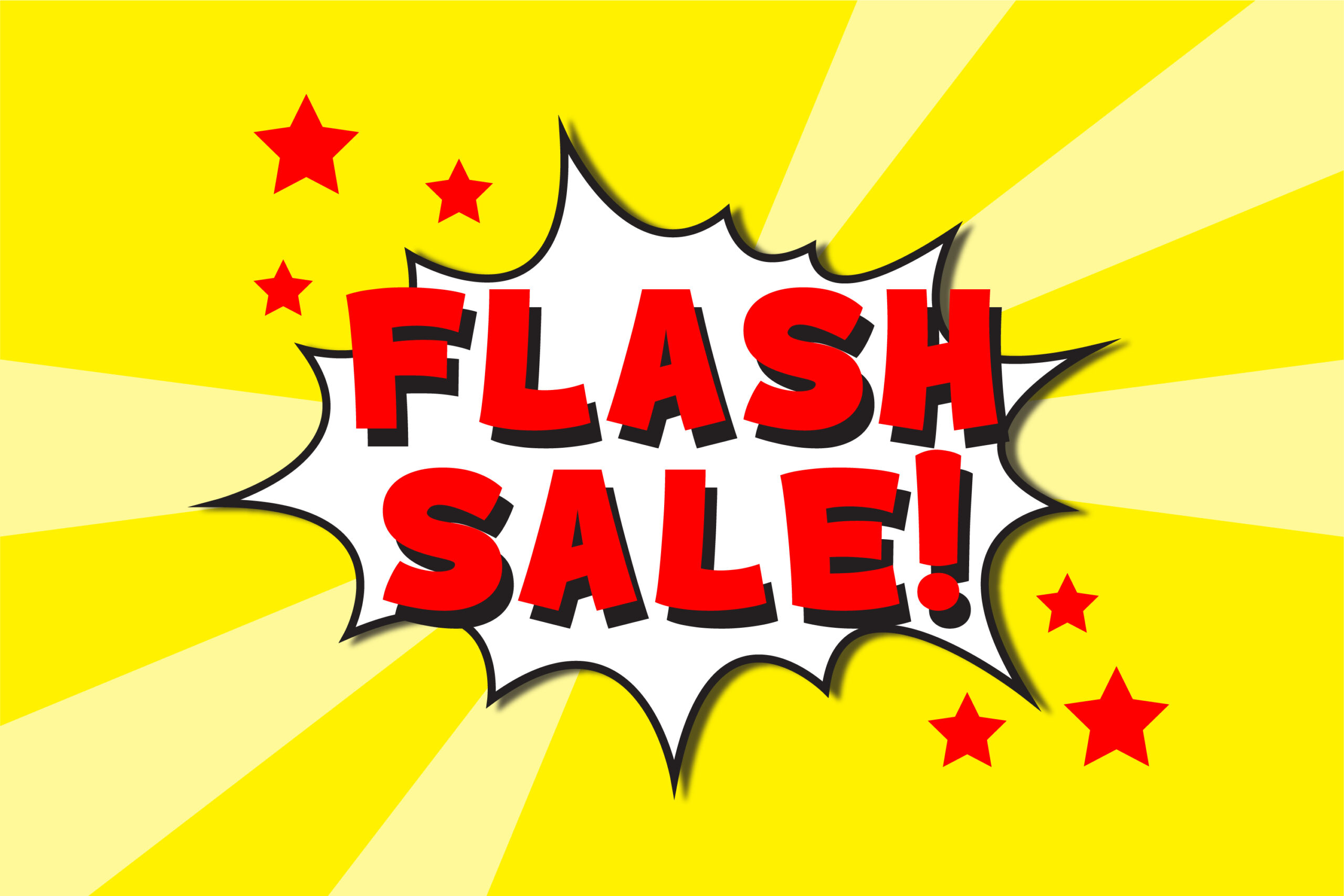
Introducing Bugazzi, a bold bubble font with strong lines designed to make a big, bold statement. Handcrafted with precision, Bugazzi is perfect for children’s books, discount posters, packaging designs, greeting cards, comics, and more. Its playful yet assertive style ensures your message stands out with clarity and impact.
Bugazzi includes a full set of uppercase and lowercase letters, numbers, and punctuation, along with an italic version for added versatility. Available in multiple file formats, including SPT, TTF, OTF, and WOFF, Bugazzi is ready to enhance your creative projects across various platforms and software. Make your designs pop with the bold and dynamic Bugazzi font.